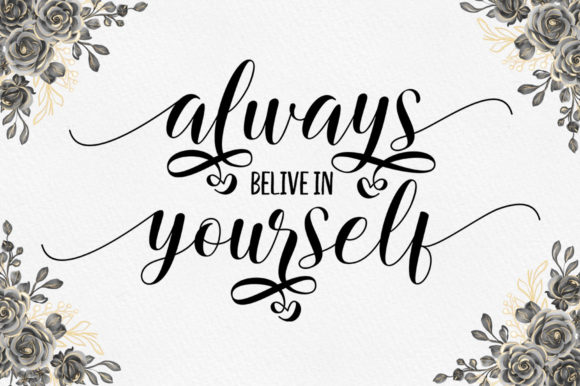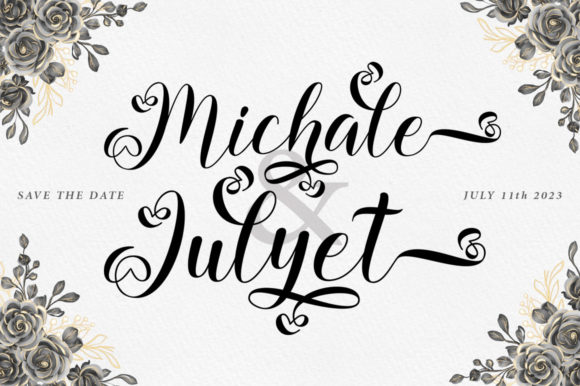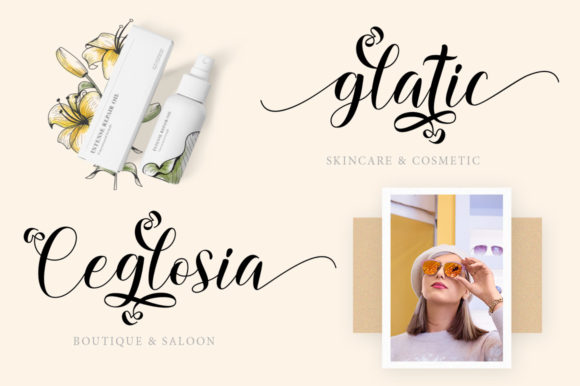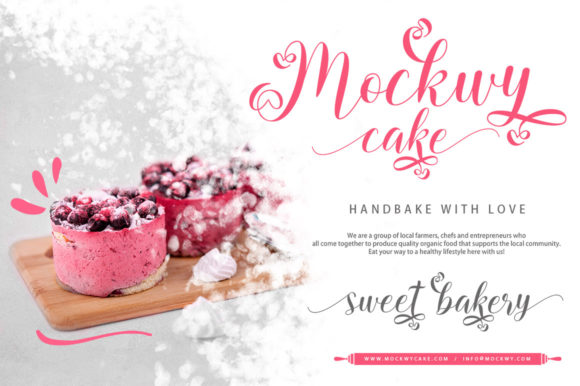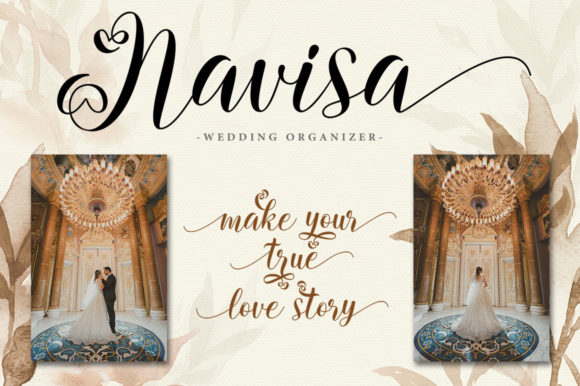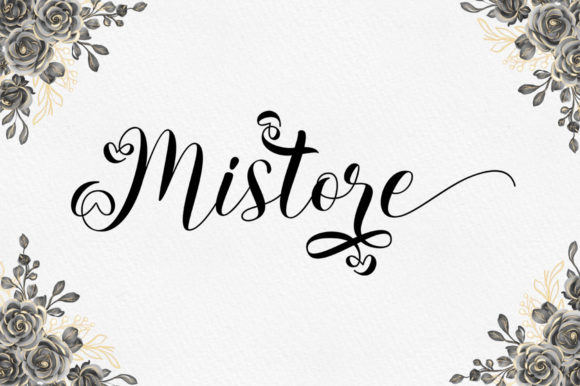
Introduction to Kathie Mikayla Font
Kathie Mikayla is a light, beautiful, and modern handwritten font with a sophisticated flow.
This is a versatile font that works in both large and small sizes Perfect for editorial projects, Logo design, Apparel Branding, product packaging, magazine headers, or simply as a stylish text overlay onto any background image.
Key Features of Kathie Mikayla Font
Why Choose Kathie Mikayla Font?
Kathie Mikayla Font offers exceptional quality and versatility, making it a valuable addition to your design toolkit. Whether you’re creating for personal projects or commercial use, Kathie Mikayla Font delivers professional results.